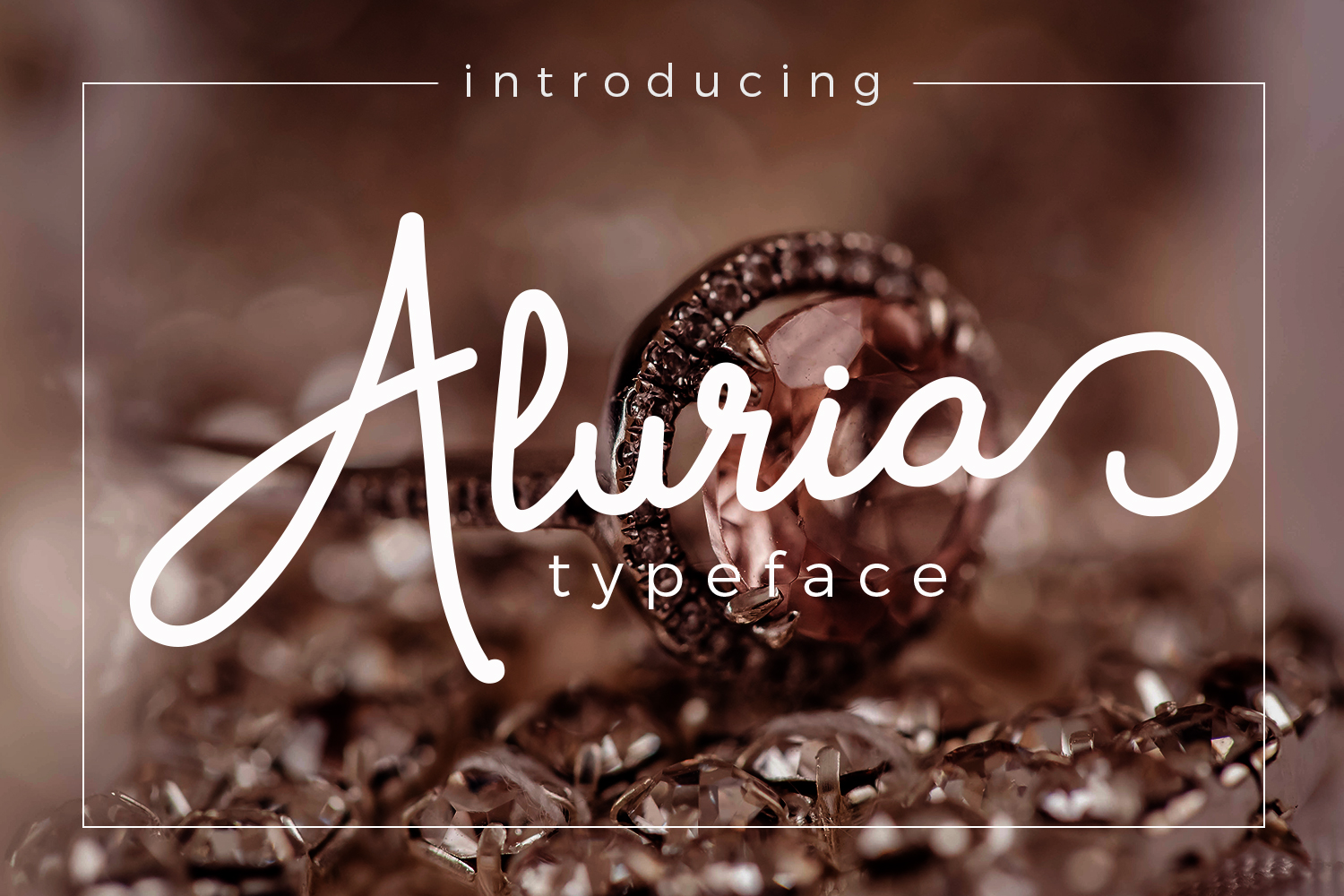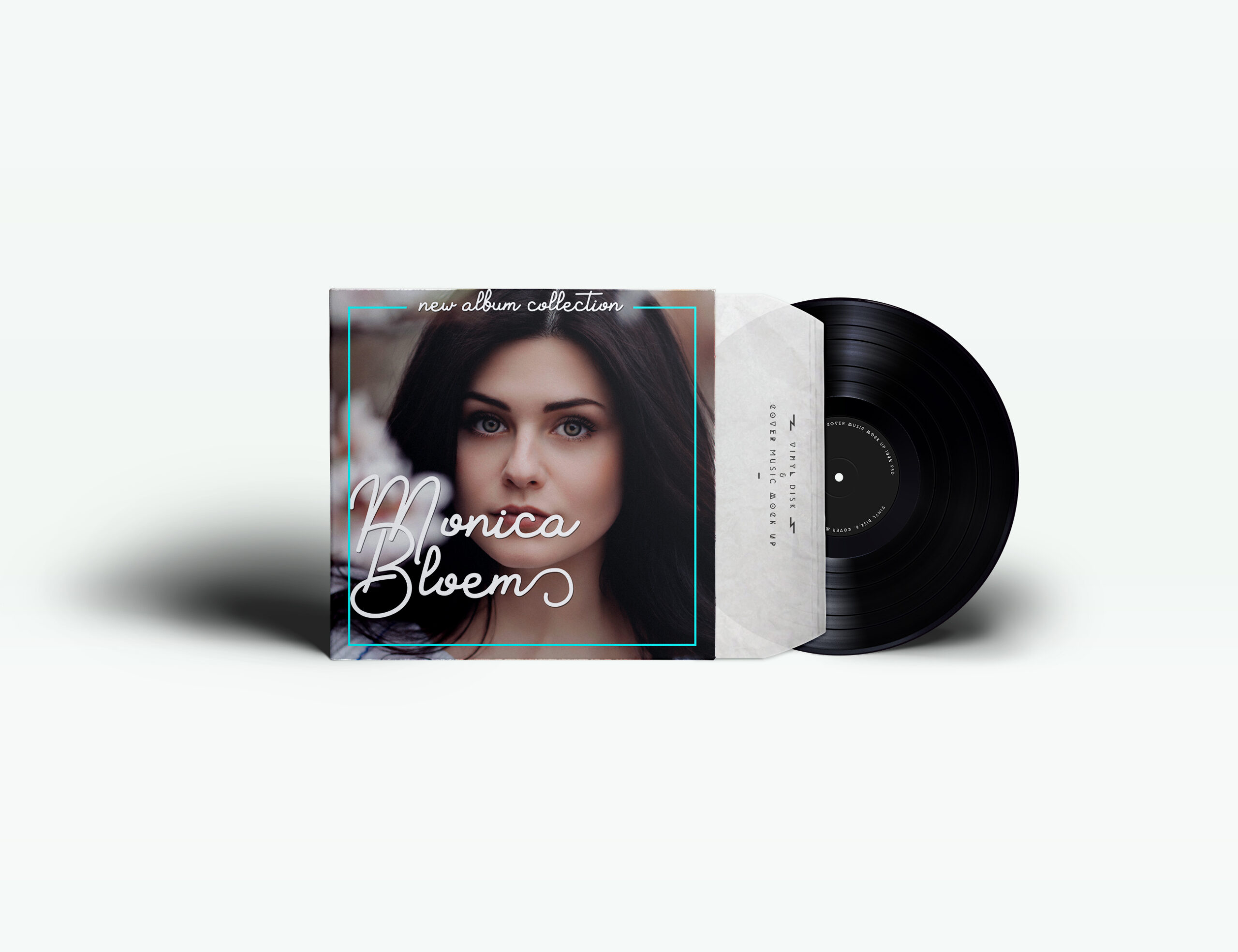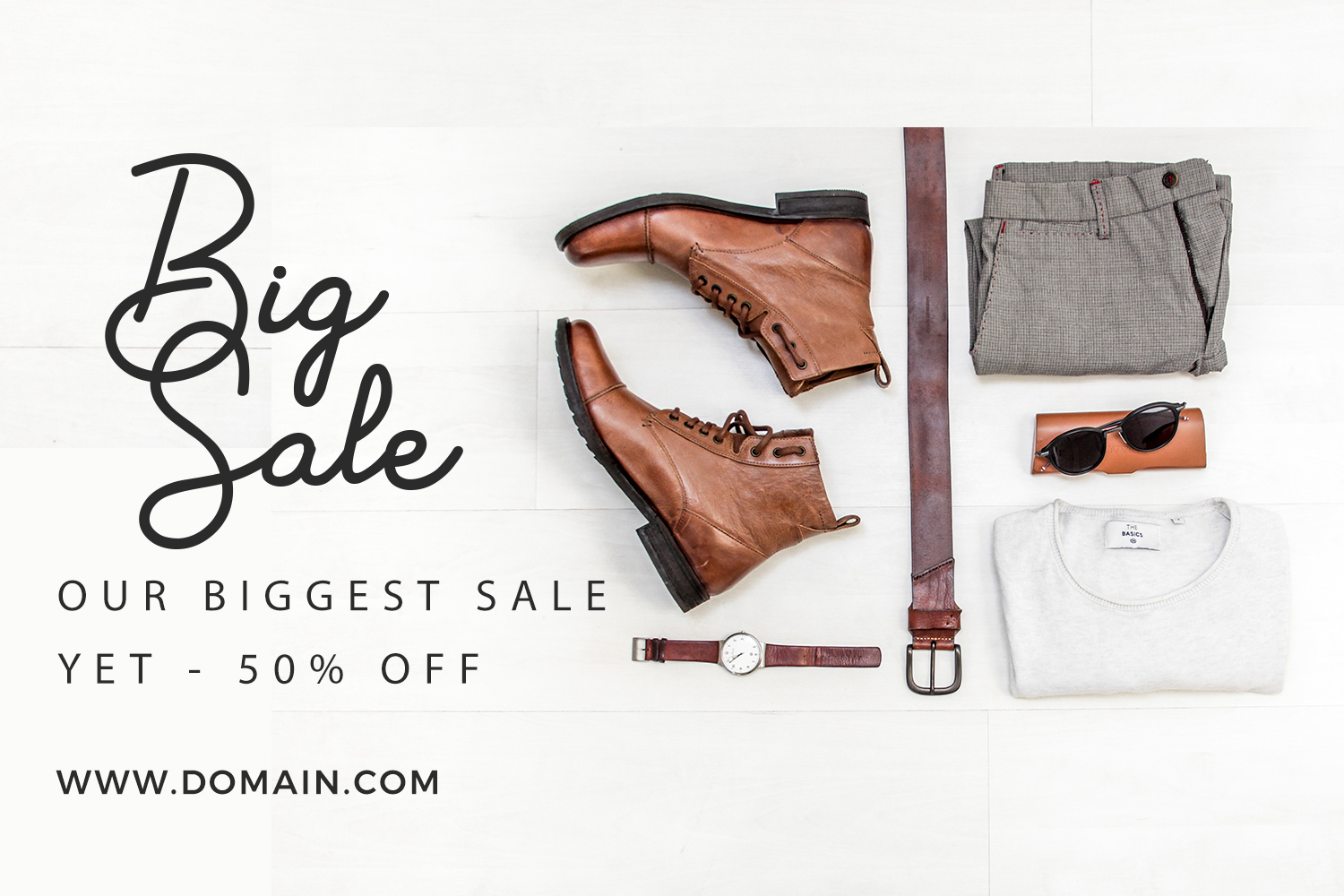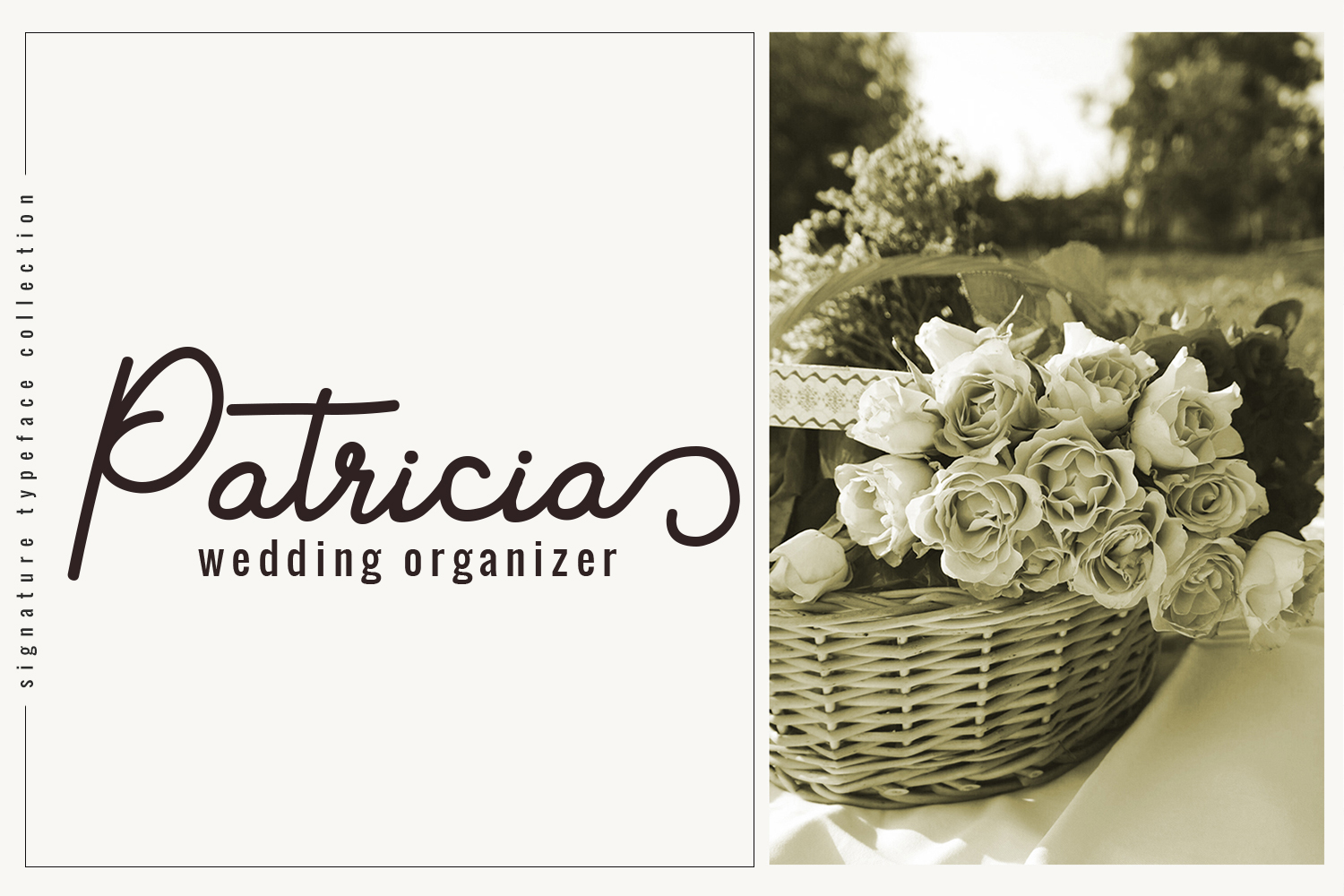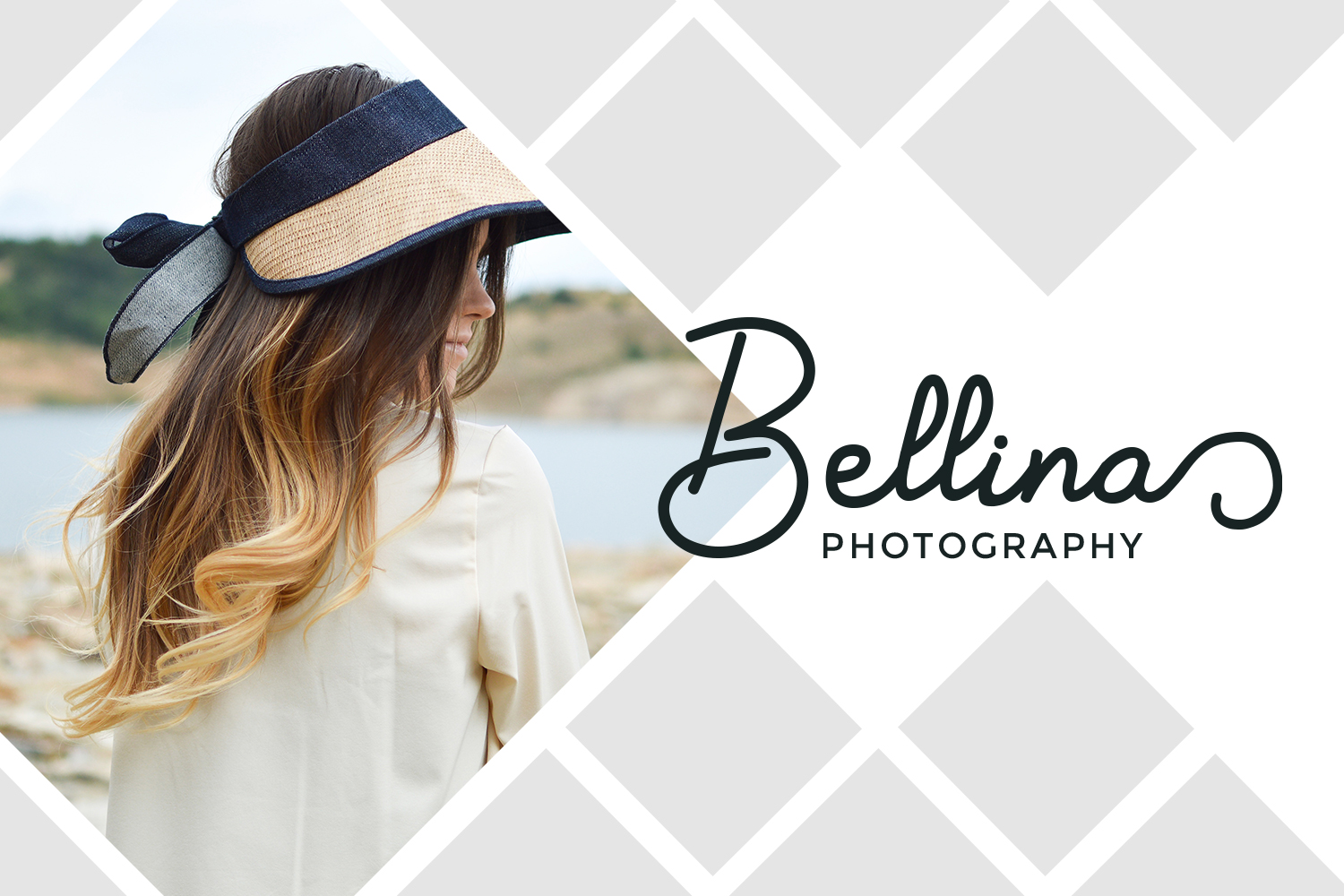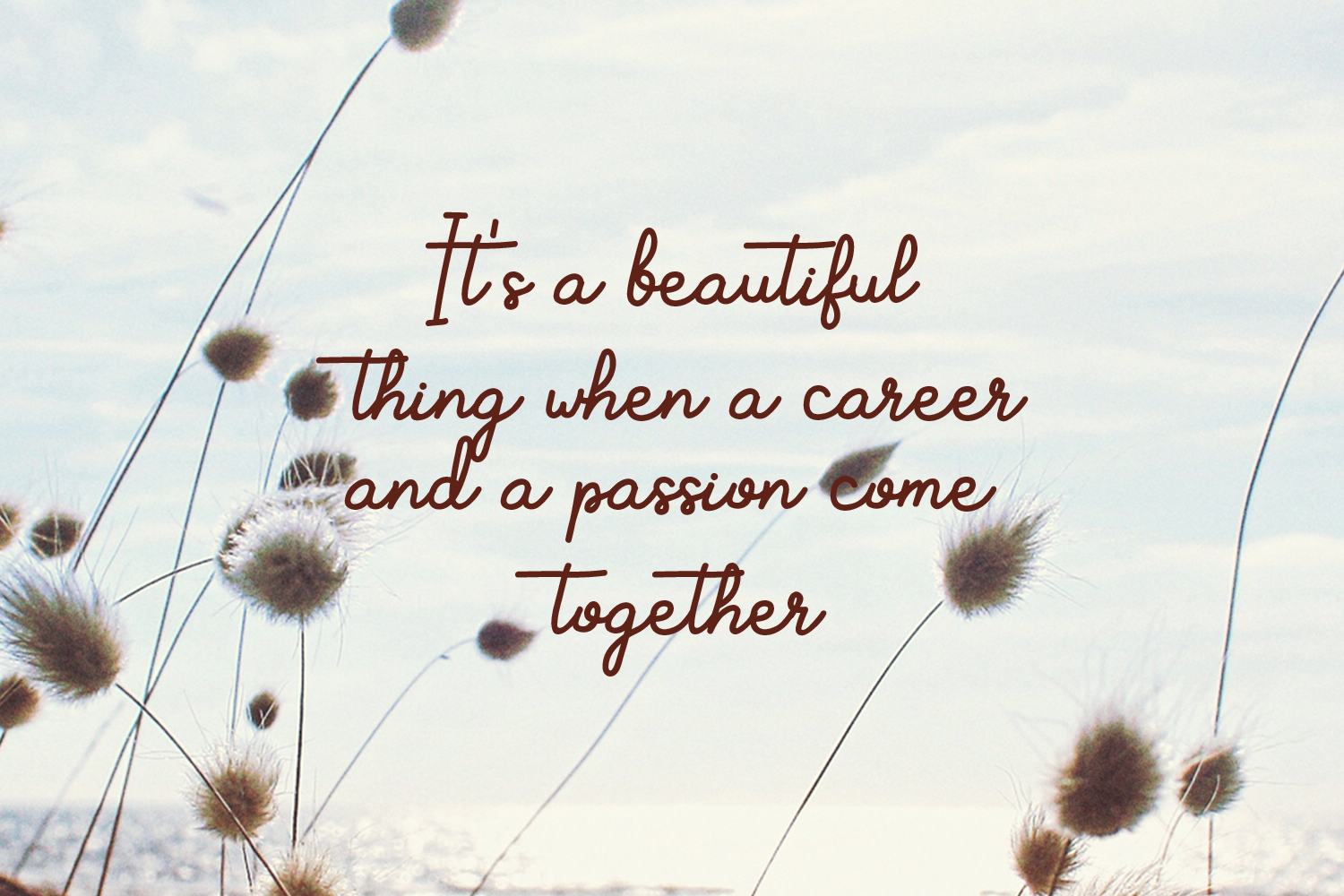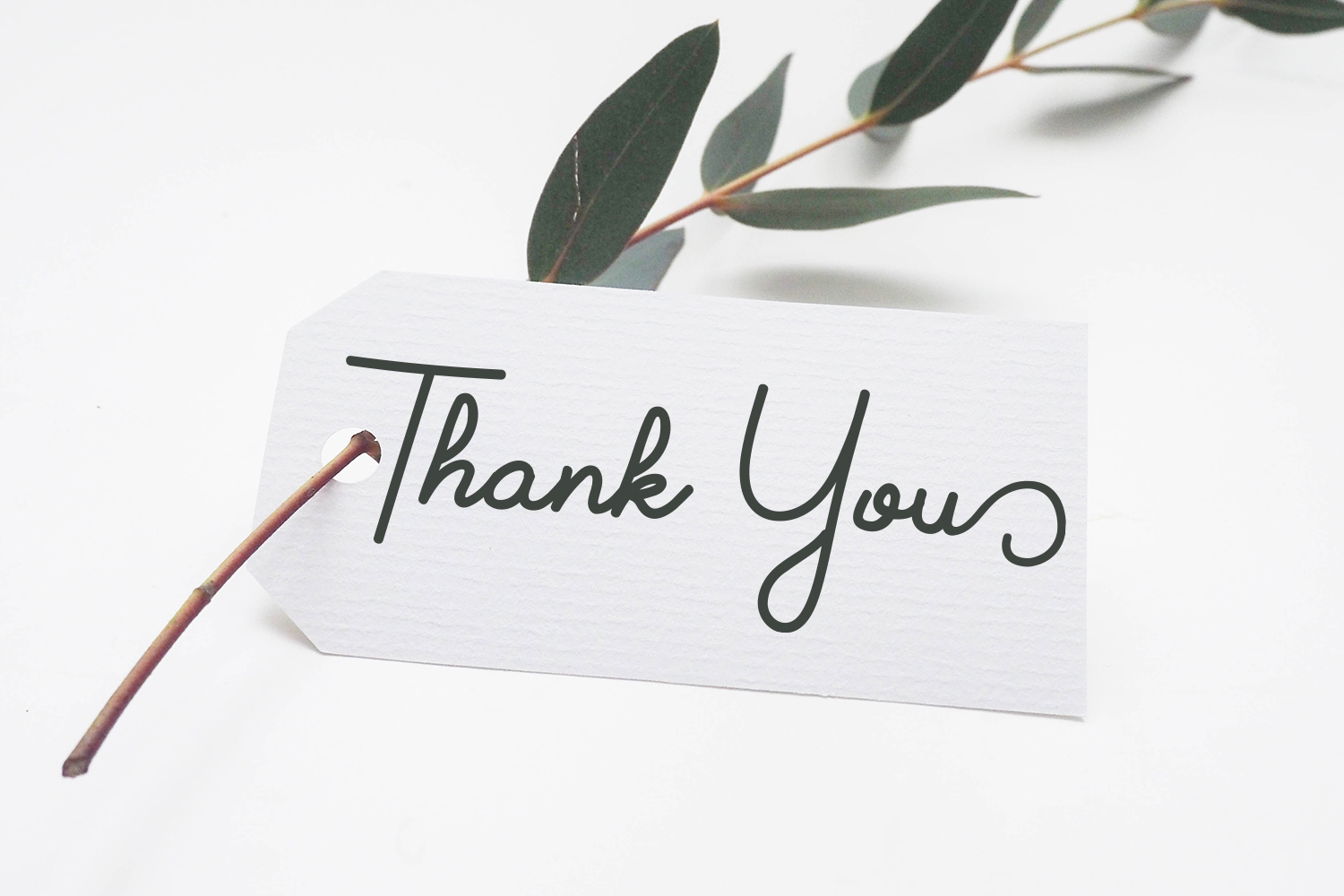
Aluria Font
About Aluria Font
Aluria signature font is inspired from handwriting. Aluria is great for branding design, signature designs, and more; this font is legible and clean, making it an optimum font for a ton of uses.